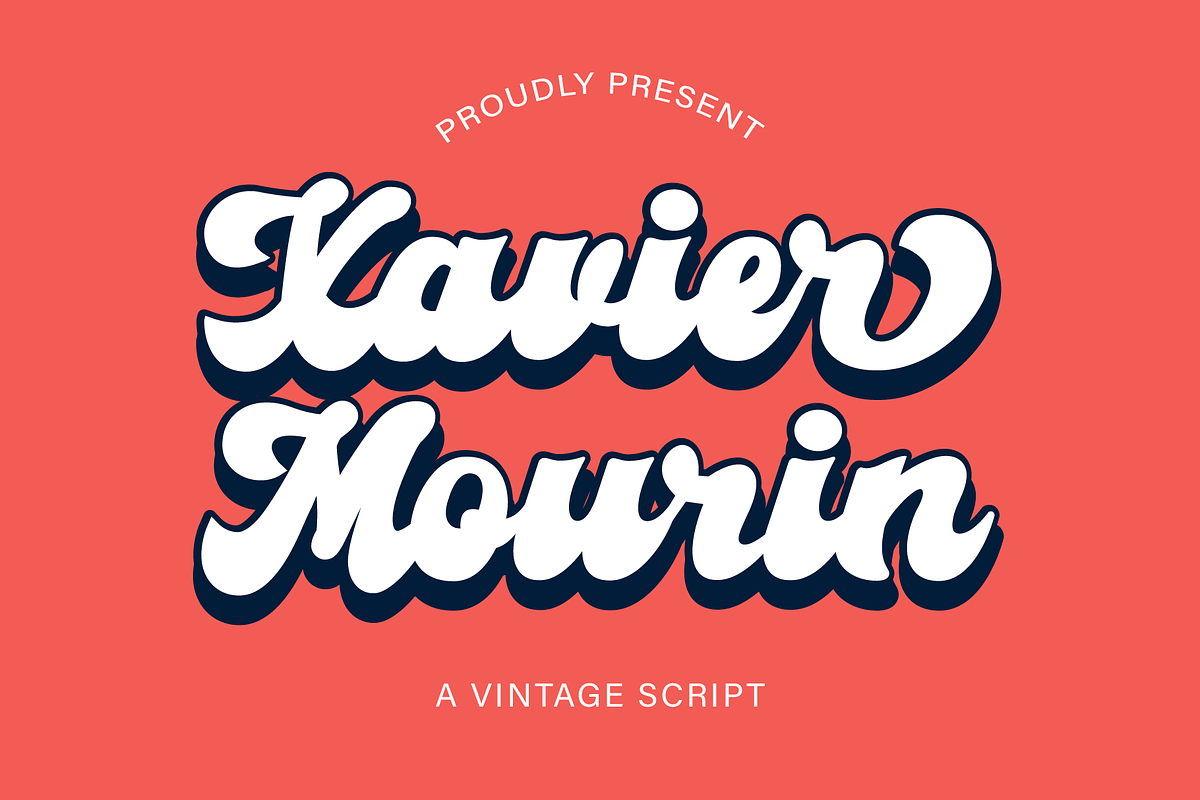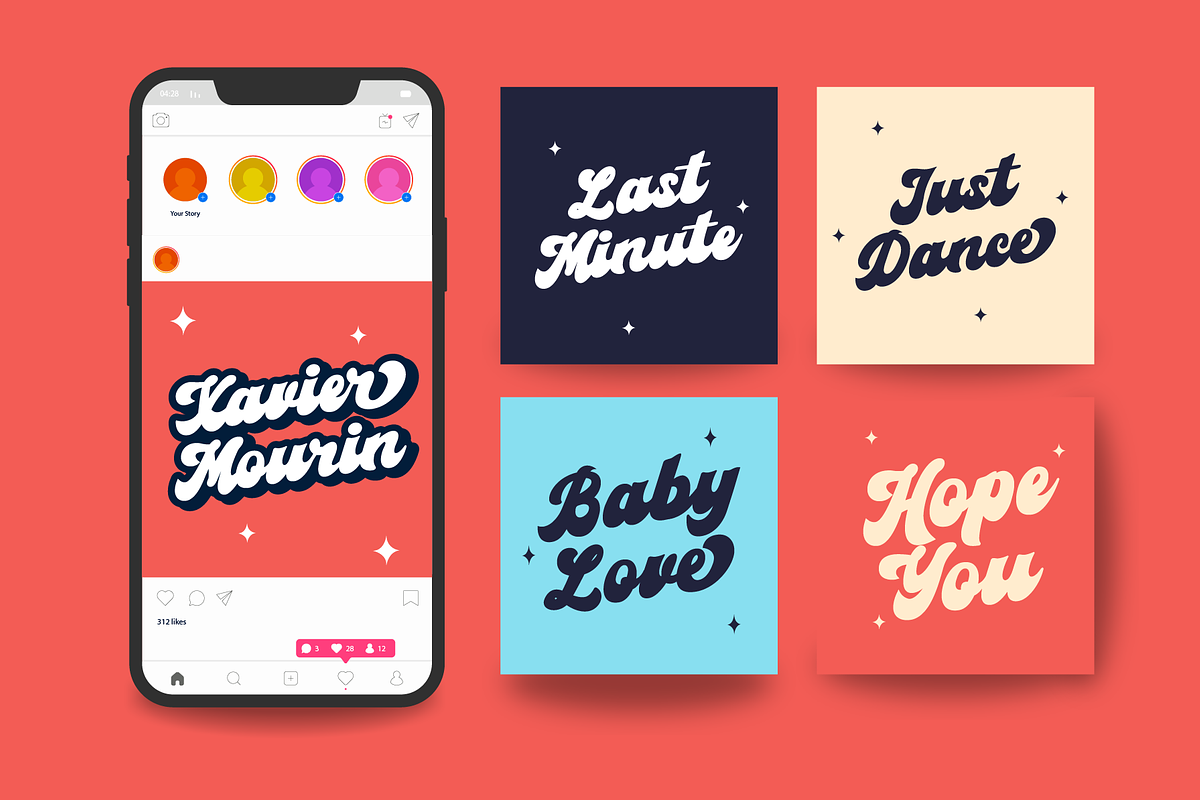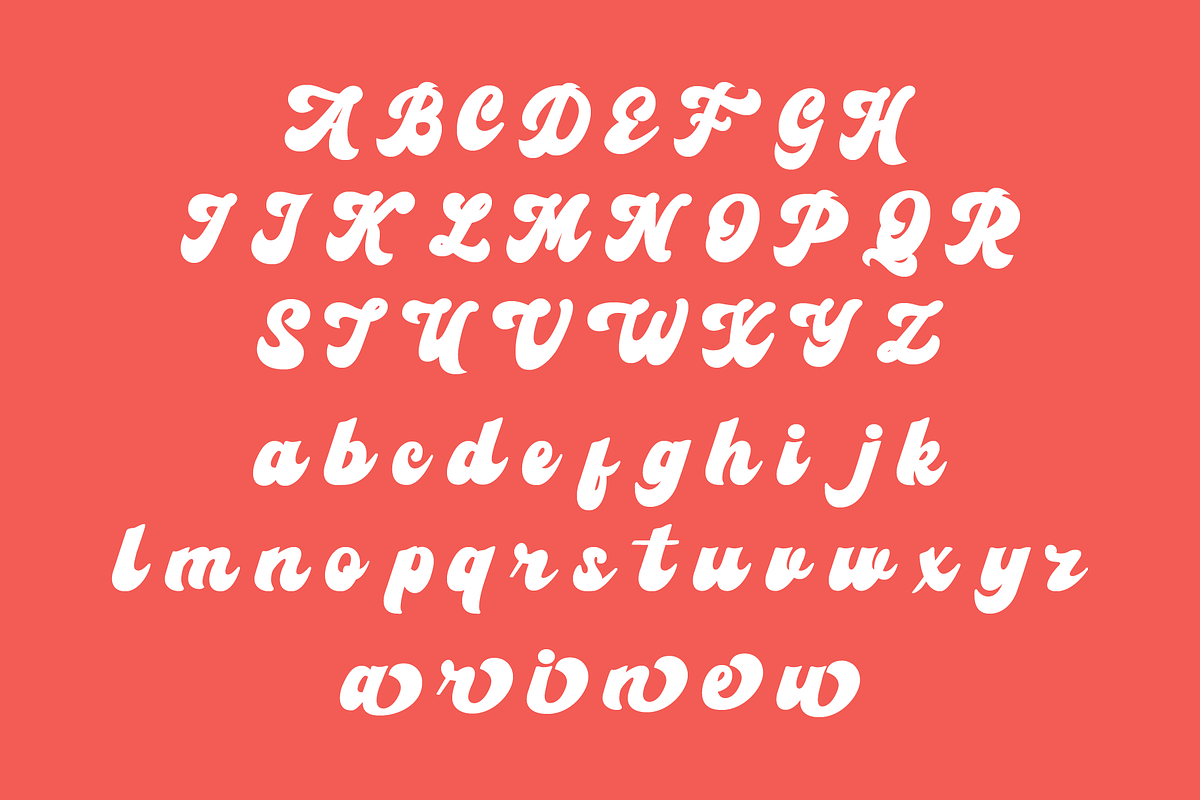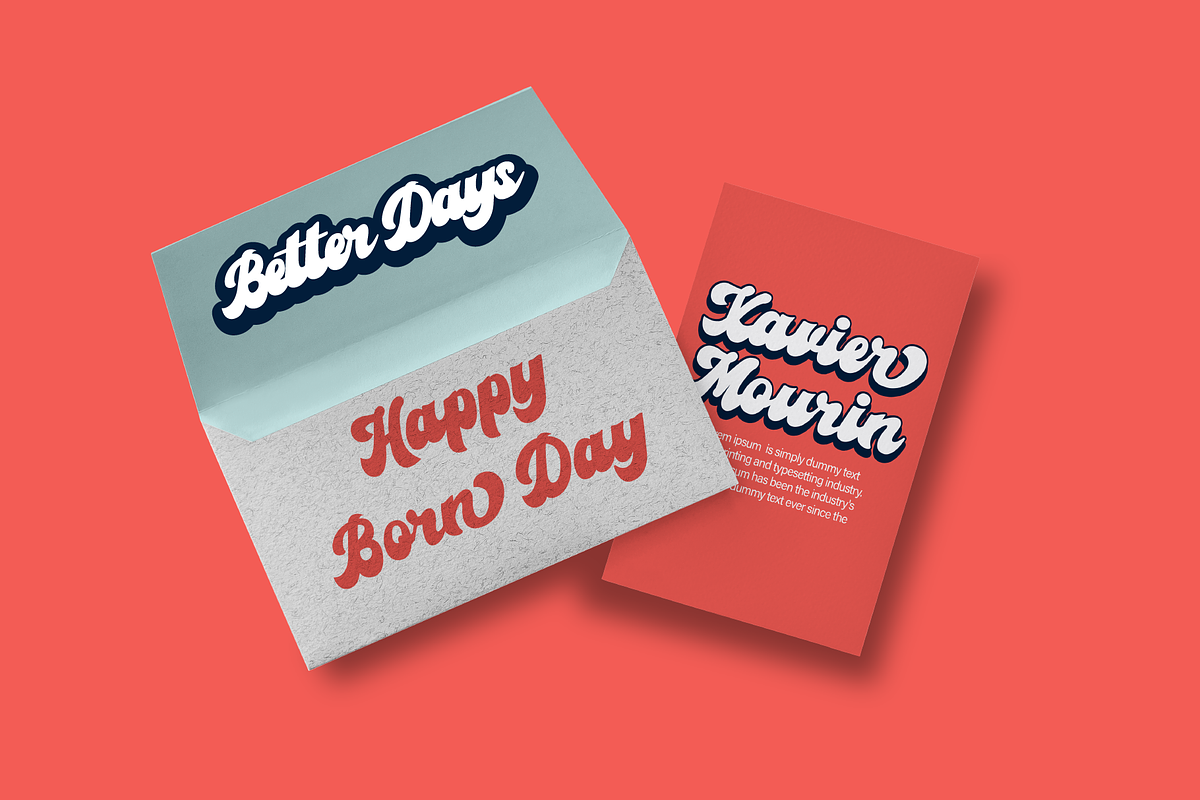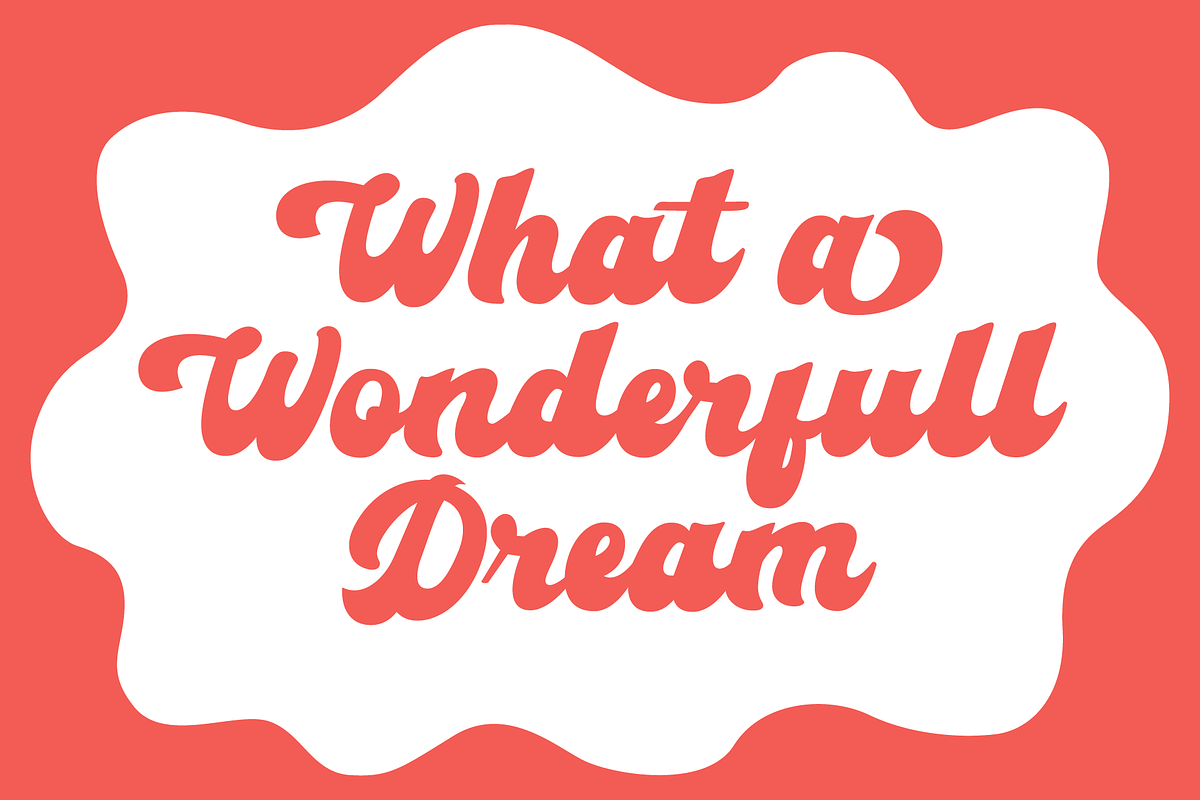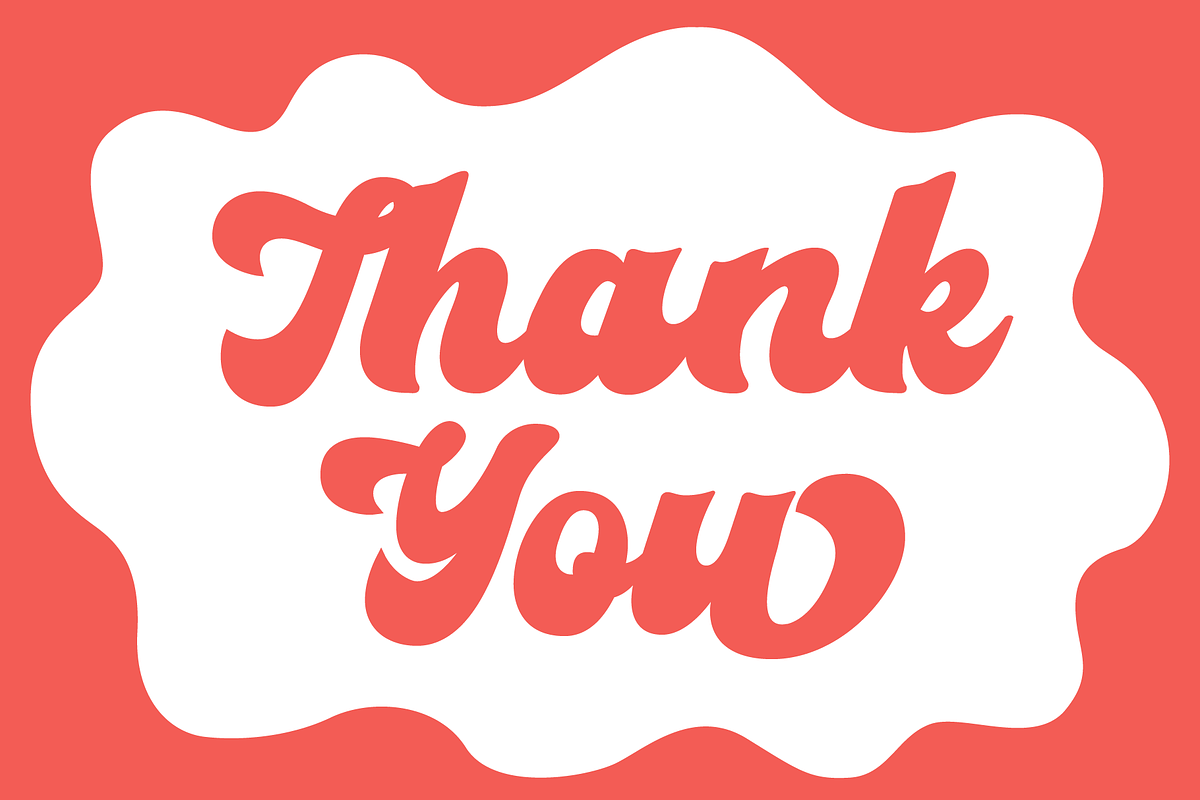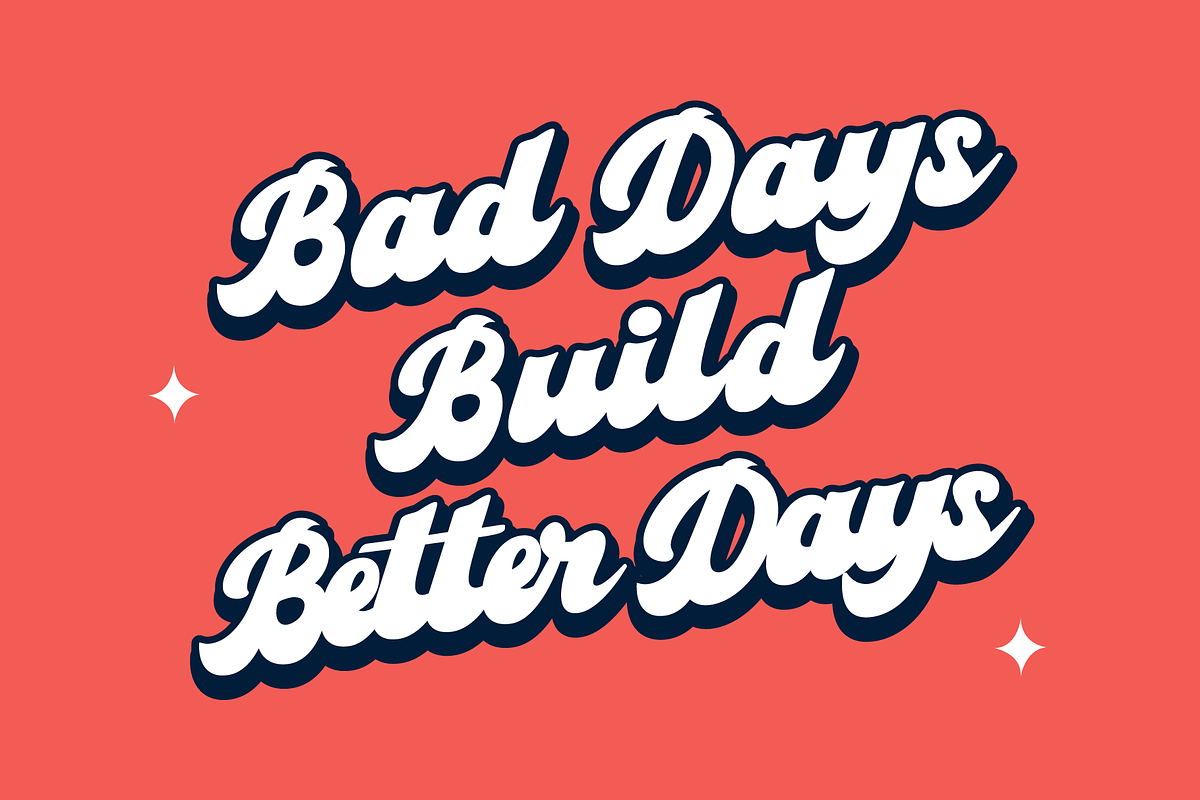
Xavier Mourin Script
Hello Guys, Introduce Xavier Mourin Script. Science is a vintage font that it suitable for your product. Its playful curves and bold lines evoke a sense of nostalgia, reminiscent of the groovy styles from the past.Perfect for invitations, cards, or any project that demands a blend of style and charm.